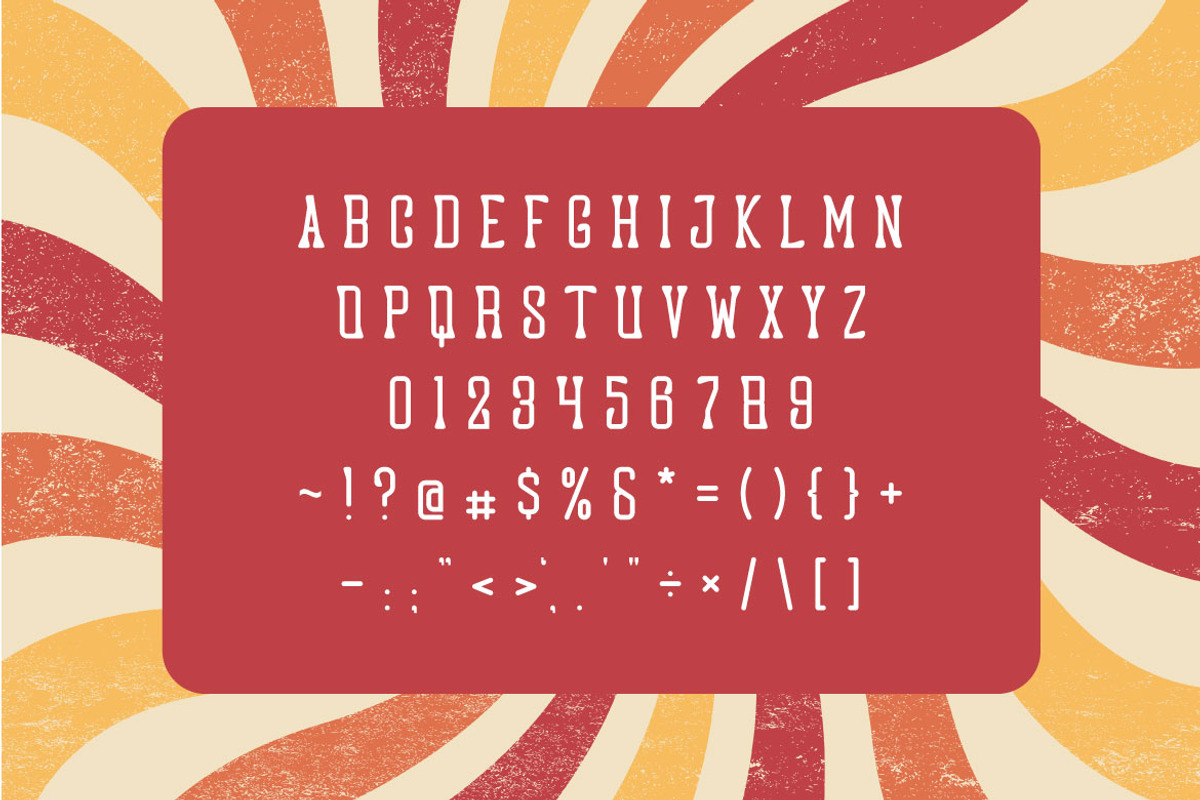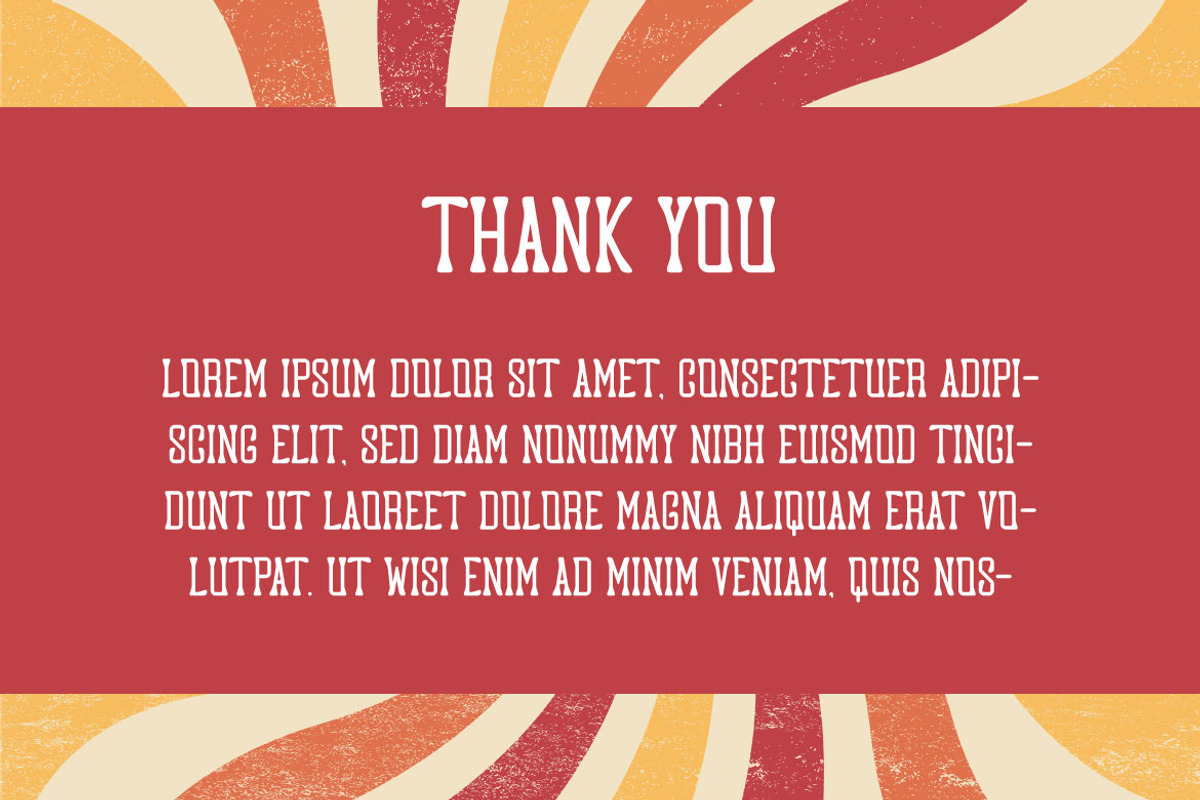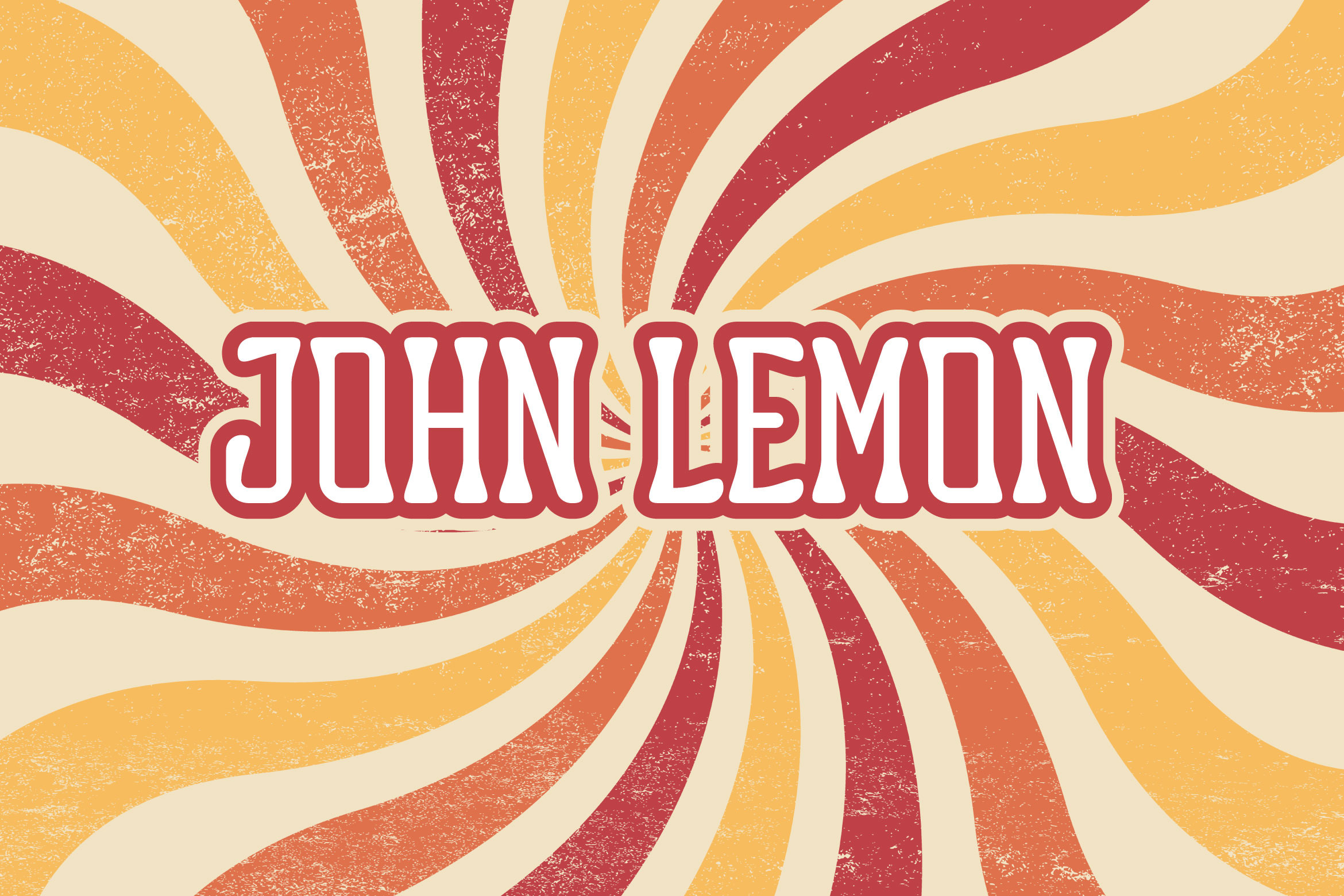
John Lemon - Vintage Groovy Font
If you are looking for a vintage groovy display font, meet JOHN LEMON
John Lemon is perfect for any works, such as sport logo and content card, book title, headline of news, banner, flyer, stationery and many more. It also can be used in any size work.